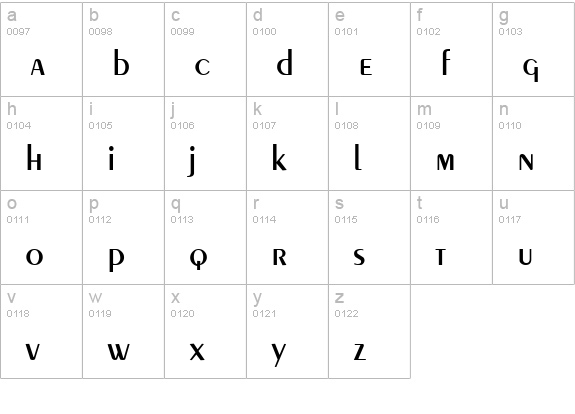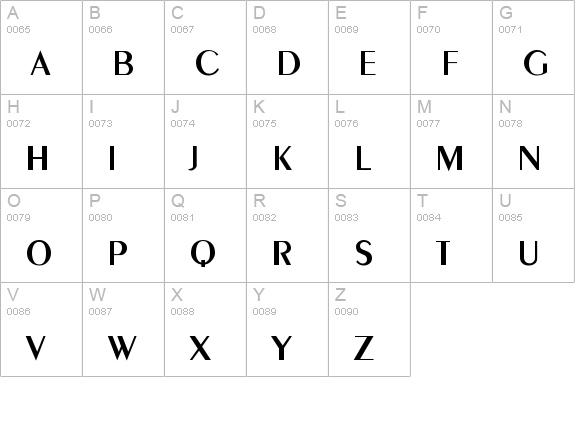
Introducing Penyae Font, a stunning and versatile typeface that effortlessly combines modern elegance with timeless sophistication. This font is the perfect choice for those seeking a touch of class and professionalism in their designs. With its clean lines and smooth curves, Penyae Font exudes a sense of refinement and refinement, making it ideal for a wide range of creative projects. Whether you're designing a logo, crafting a brand identity, or creating eye-catching headlines, this font will undoubtedly elevate your work to the next level. What sets Penyae Font apart is not only its exceptional aesthetics but also its remarkable versatility. This font seamlessly adapts to various design styles and contexts, effortlessly enhancing the visual impact of any project it is used in. From minimalistic and contemporary designs to bold and expressive compositions, Penyae Font effortlessly embodies the essence of each concept. And the best part? Penyae Font is available to download for FREE at FontsMarket.com. That's right, this extraordinary font can be yours without spending a dime. So why wait? Elevate your designs with Penyae Font today and unleash your creativity like never before. Don't miss out on this incredible opportunity to enhance your design toolkit with a font that not only delivers exceptional results but is also freely accessible.